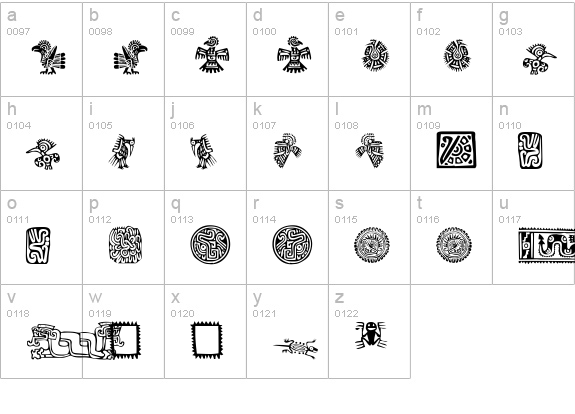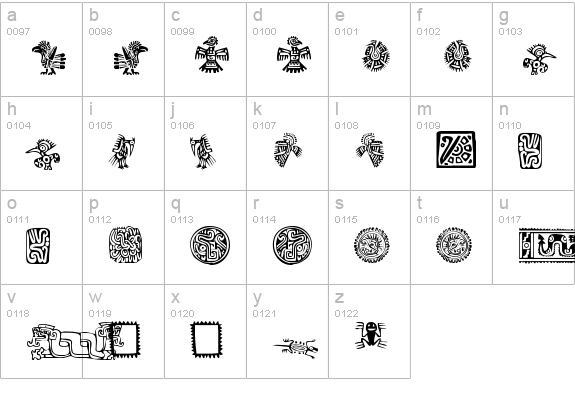
Mexican Ornaments Font Details
Introducing Mexican Ornaments font, a vibrant and culturally-rich typeface that embodies the spirit of Mexico's colorful traditions. This unique font features intricate patterns and ornate designs inspired by traditional Mexican artwork and decorations. Each character is beautifully crafted with elements that pay homage to the country's rich heritage. Mexican Ornaments font is perfect for adding a touch of flair and authenticity to your design projects. Whether you're working on a poster, invitation, or branding materials, this font will infuse your work with the vibrant energy of Mexican culture. Best of all, Mexican Ornaments font is available for free download at FontsMarket.com. Now you can easily access this stunning font and incorporate its unique style into your designs without any cost. Embrace the beauty and creativity of Mexico with Mexican Ornaments font today.